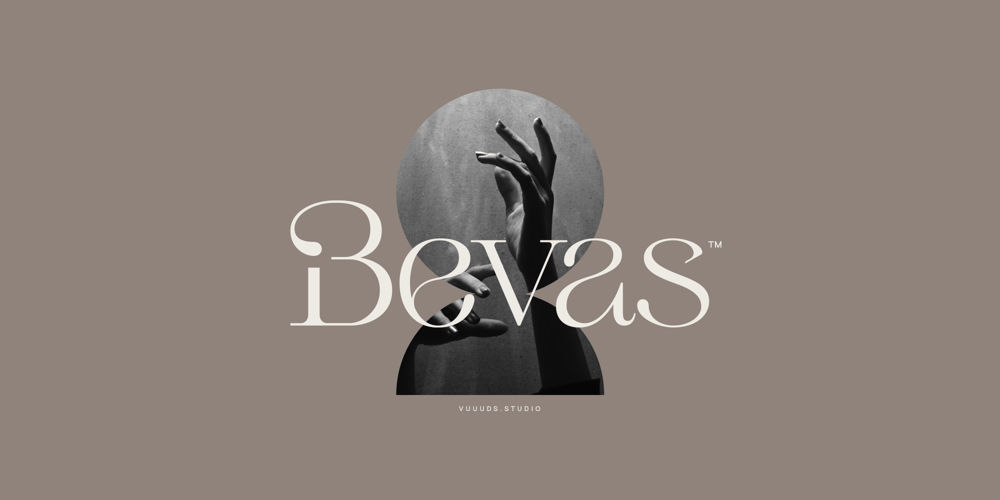
Bevas Font Family was designed by Agung Syaifudin and published by vuuuds. Bevas contains 1 styles and family package options. Introducing Bevas Font!Bevas is modern experimental serif font with unique cursive on each glyphs, every single letters have been uniquely crafted.This font including beautiful alternate glyph. You can access the alternate glyph via Font Book (Mac user) or Windows Character Map (Windows user), I’ve been put the link tutorial inside the zip file.